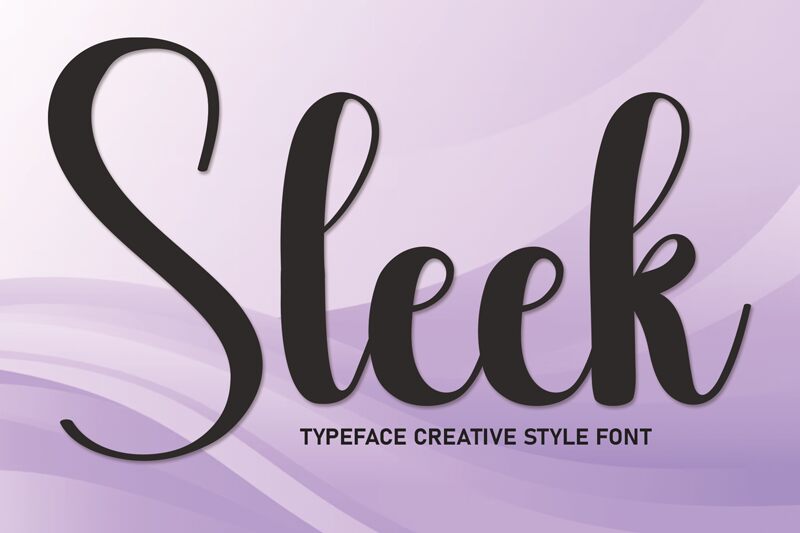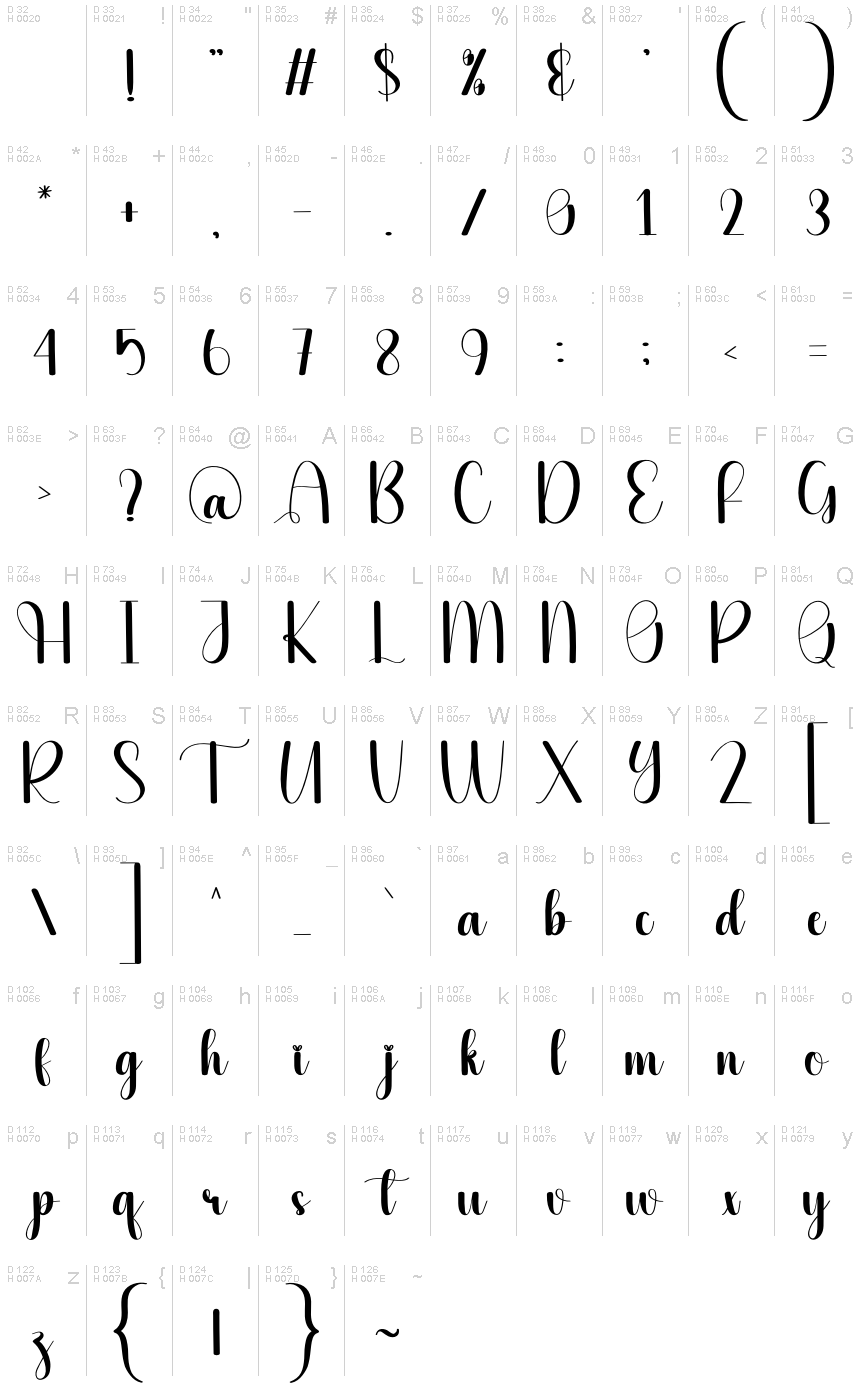
Sleek
Sleek font, crafted by Scratchones, beautifully embodies the elegance of modern calligraphy. Its flowing curves and stylish lines create a captivating visual rhythm, making it an ideal choice for projects that demand sophistication. The font's notable delicate appearance effortlessly dances across any design, inviting attention while maintaining an air of grace.
With its expressive character, Sleek can elevate branding materials, wedding invitations, or elegant presentations. This versatile typeface shines in both headlines and body text, ensuring messages stand out with clarity and charm. Perfect for contexts where aesthetics are paramount, Sleek brings a contemporary flair that resonates beautifully across various applications.